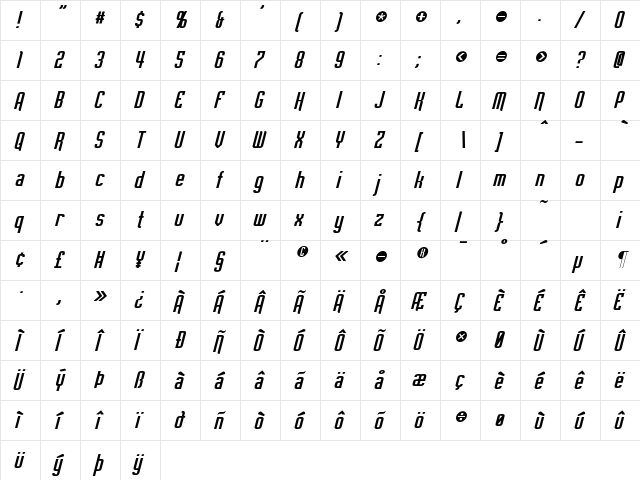
Empanada Italic
Design Context for Empanada Typeface
Empanada is a composed and adaptable typeface that performs quietly and consistently across a wide range of design contexts. The dynamic lean of this cut emphasises speed and emphasis in any layout.
Pro Tip: Use Empanada for emphasis, pull quotes, and subheadings where its slanted energy can add rhythm to the layout.